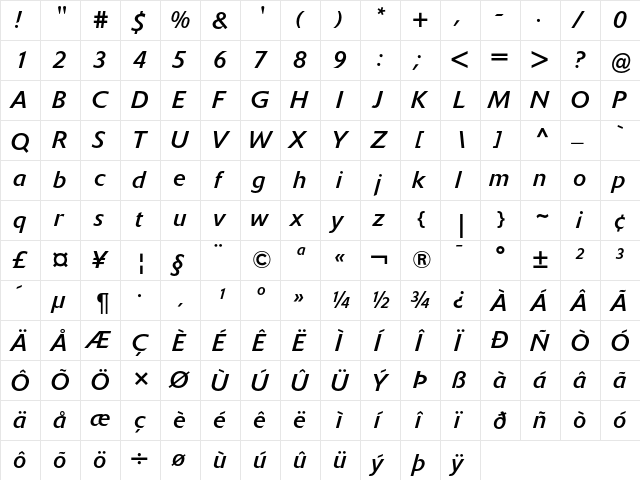
Delta Jaeger Book Italic
Design Context for Delta Jaeger Typeface
Delta Jaeger is a composed and adaptable typeface that performs quietly and consistently across a wide range of design contexts. Its italic angle brings a sense of urgency and motion to the letterforms.
Pro Tip: Try Delta Jaeger for annotation and caption copy alongside an upright companion — the contrast in angle creates a dynamic but ordered typographic system.